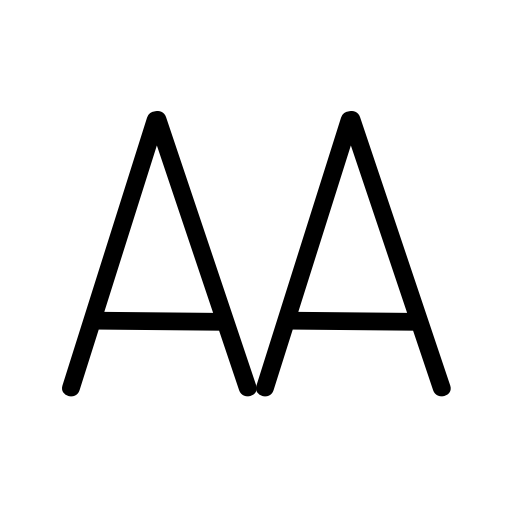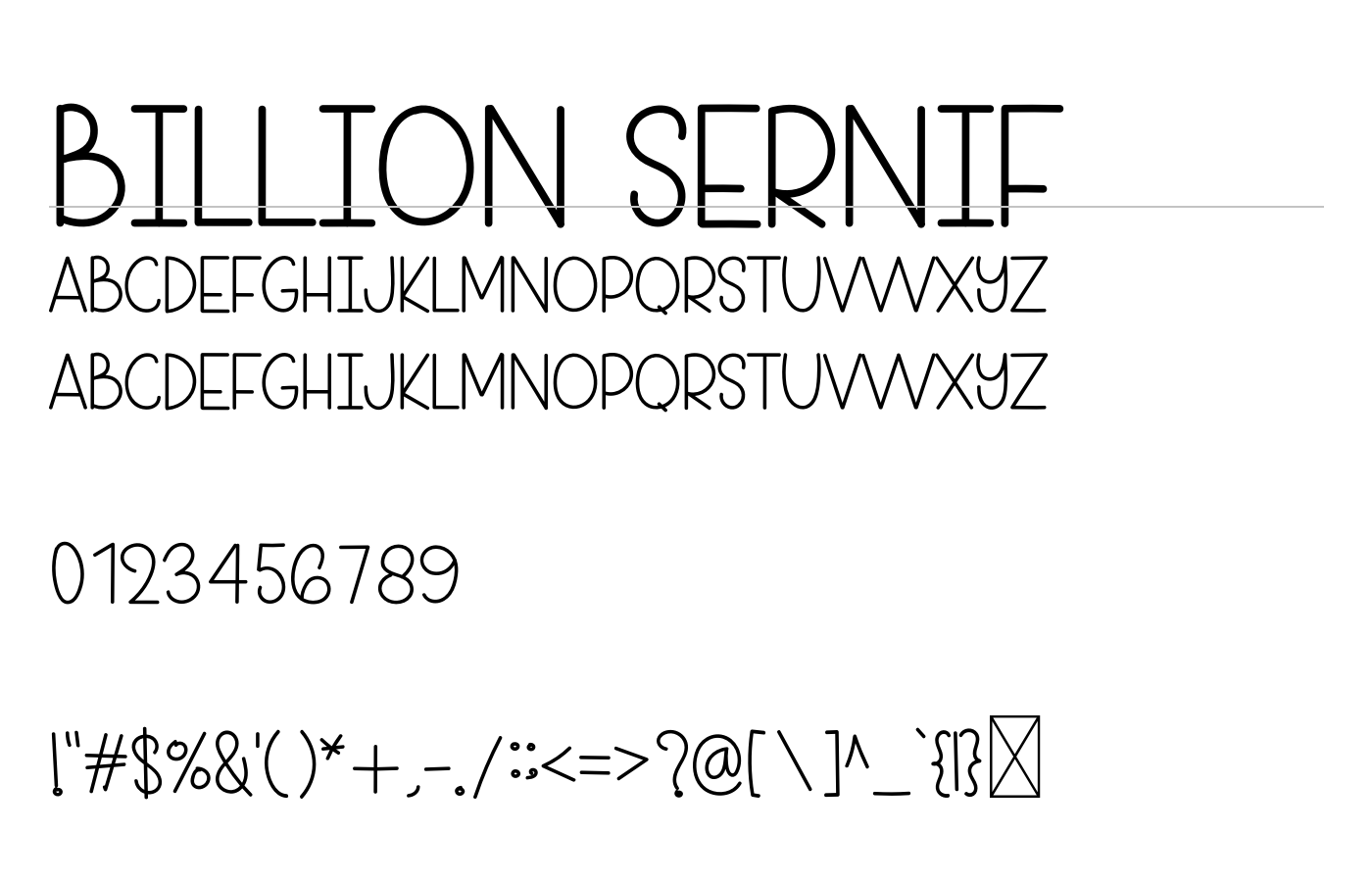
Billion Sernif is a slender, playful sans serif font with a handwritten feel, characterized by its tall, narrow letterforms and delicate strokes that create an airy, effortless look. Its quirky shapes and light weight make it ideal for casual, creative projects such as children's books, informal invitations, or fun branding that seeks a friendly and approachable vibe. This font works well in headlines and short texts where personality and a touch of whimsy are desired without sacrificing readability.
Billion Sernif Font
About Billion Sernif Font